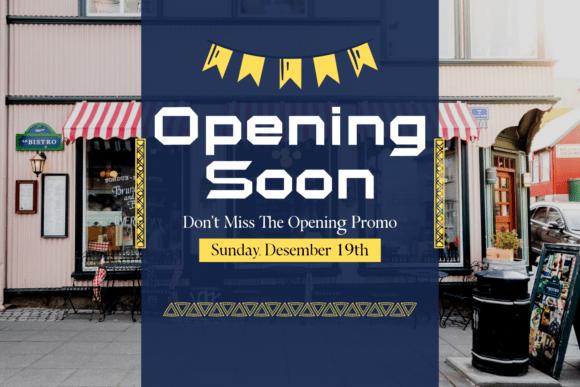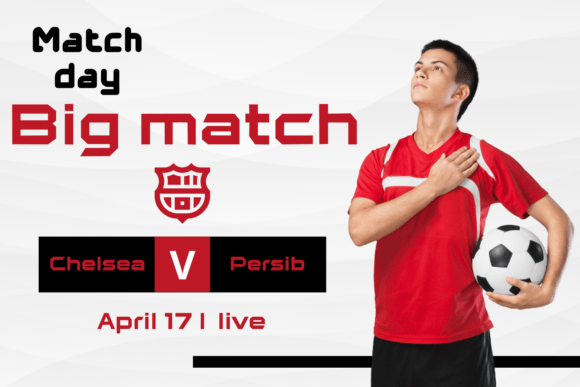
Introduction to Murisadj Regular Font
Murisa DJ is a futuristic geometric display sans built from polygonal planes and hard 45° cuts.
Angular strokes, squared counters, and beveled terminals create a crisp, techno silhouette with strong rhythm and high impact It reads clean at large sizes and shines on nightclub flyers, DJ wordmarks, esports branding, game titles, and sci-fi interfaces—anywhere you want bold, high-energy modernity.